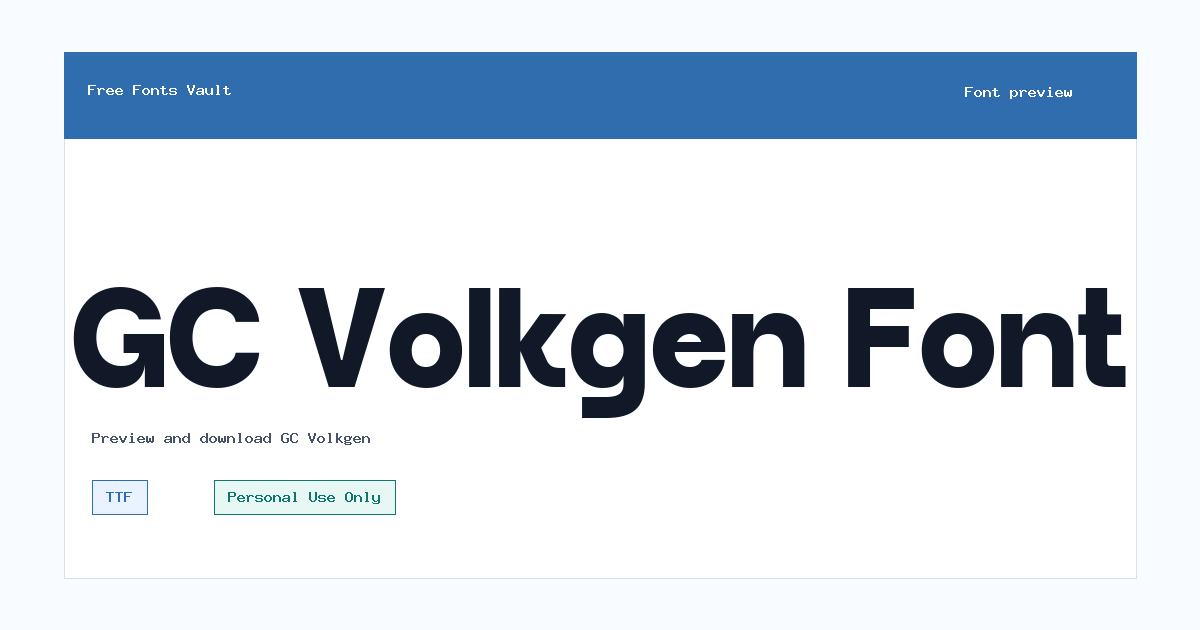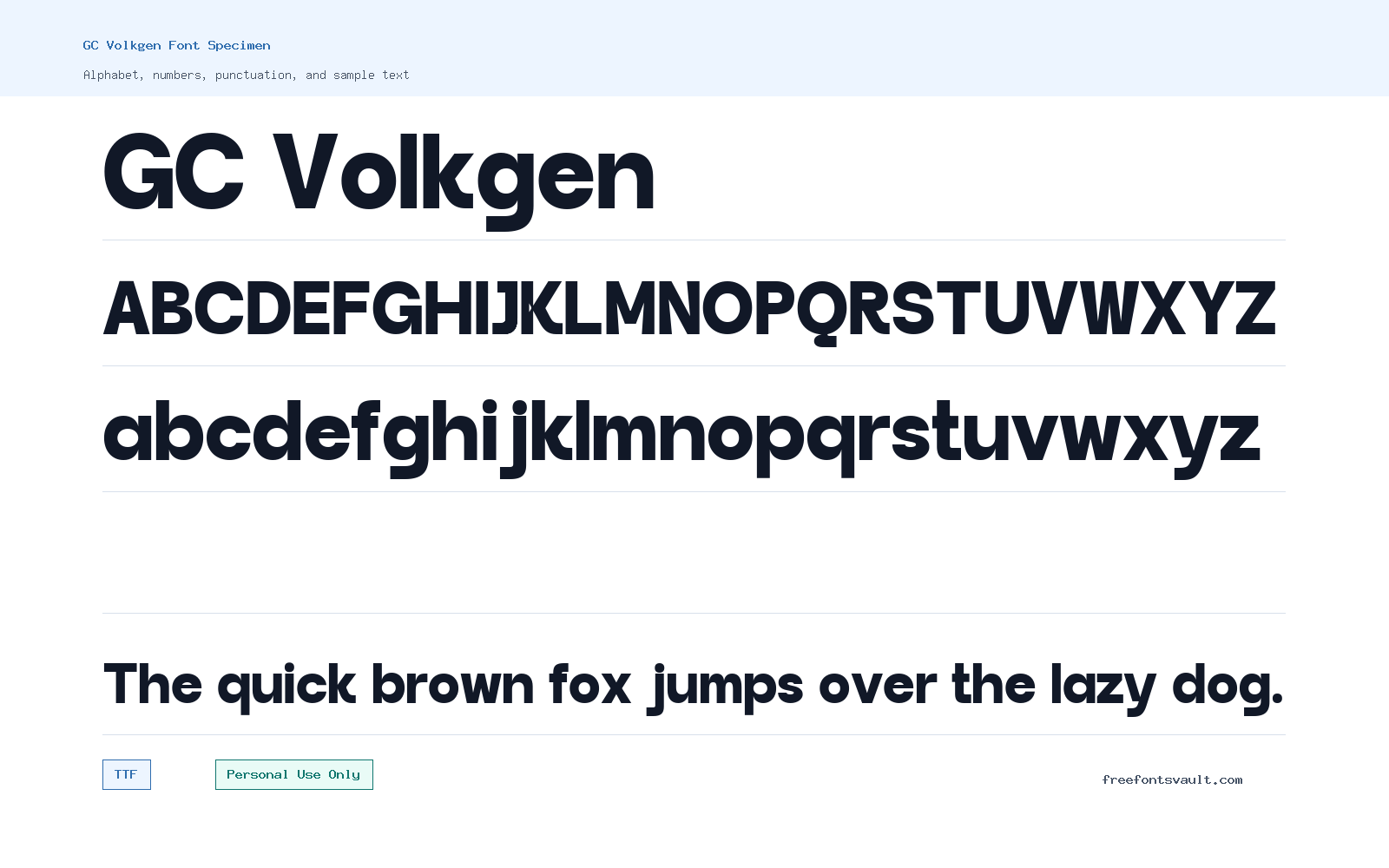
GC Volkgen
- Designer Maheza Ferro Annas Jasmindar of Glyphonic
GC Volkgen is a bold sans serif demo font with a clean, firm look for short display text. It is best treated as a headline or branding-style font rather than a long-reading typeface.
About GC Volkgen Font
GC Volkgen has a strong sans serif structure and comes in a regular TTF file with a bold weight value. The available style is suited to words that need clear impact: names, short titles, poster lines, social graphics, and simple display blocks. Because only one regular demo file is listed, it works best when the design does not require a full family with italics, light weights, or extended text styling.
- Bold sans serif appearance for short display settings
- Headlines, posters, thumbnails, and social media text
- Logo drafts, name treatments, and personal design mockups
GC Volkgen is credited to Maheza Ferro Annas Jasmindar of Glyphonic.
Is GC Volkgen good for paragraph text?
It is better for short display text. Its bold sans serif style may become tiring in long paragraphs, so use a separate body font for longer reading.
Who designed GC Volkgen?
The font is credited to Maheza Ferro Annas Jasmindar of Glyphonic.